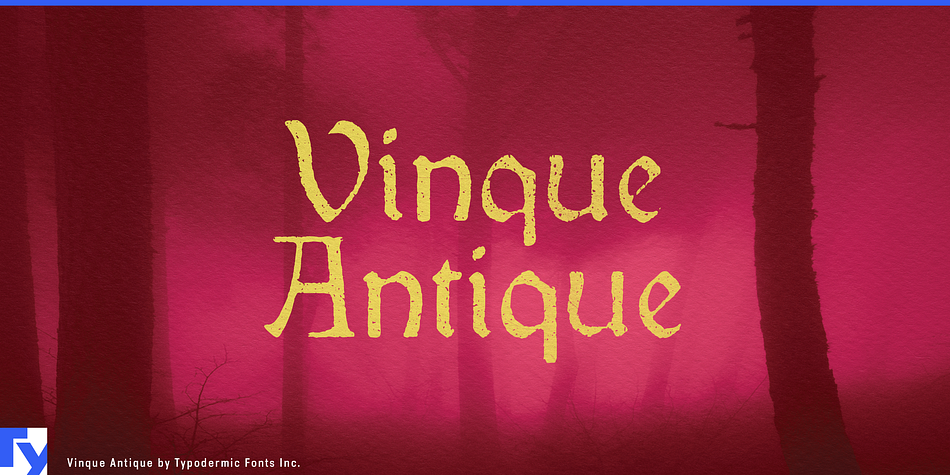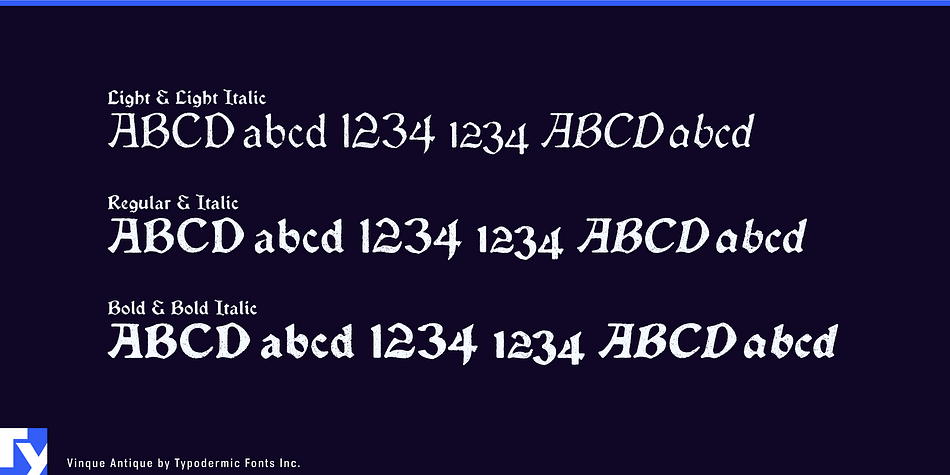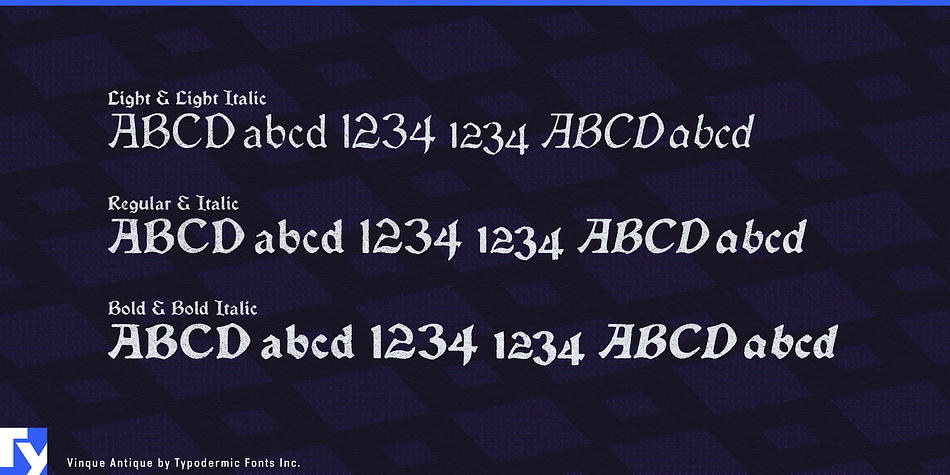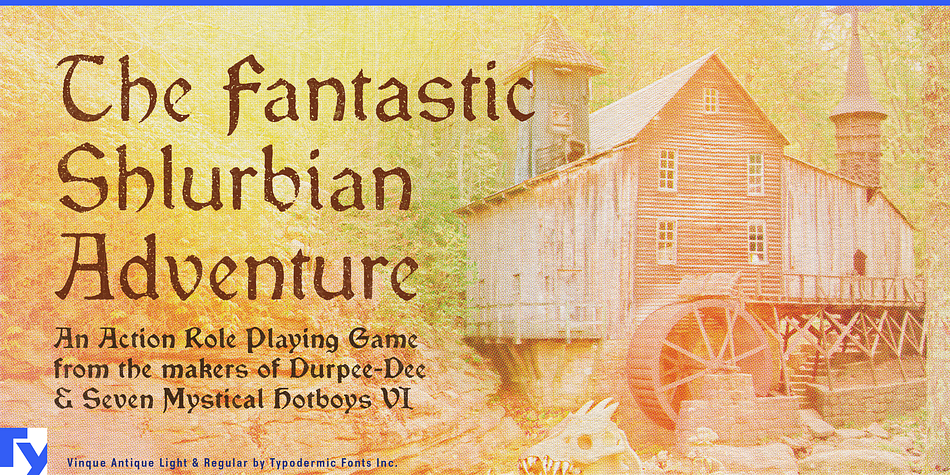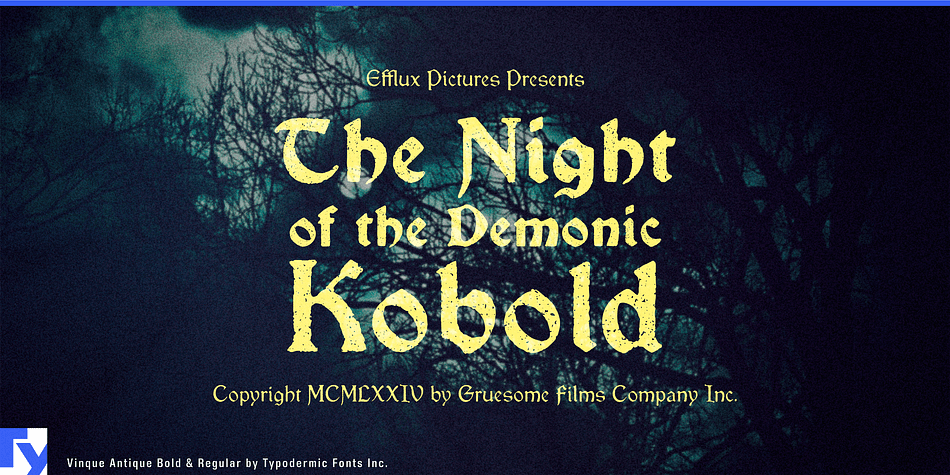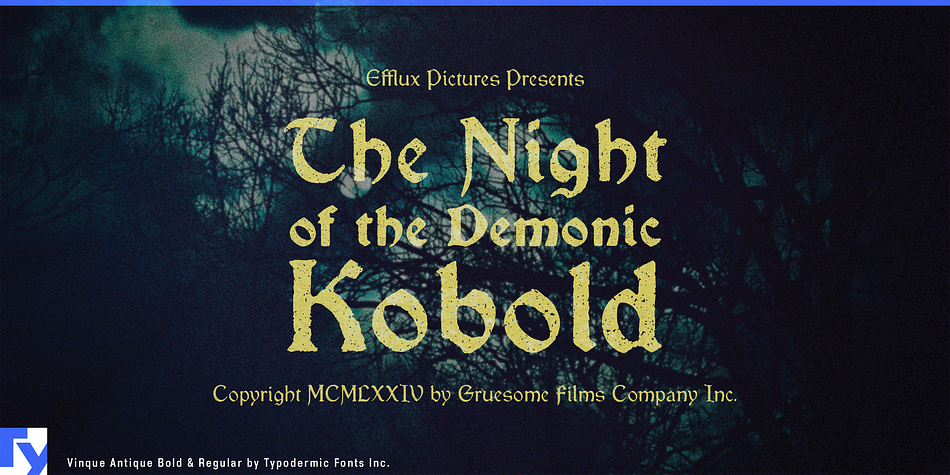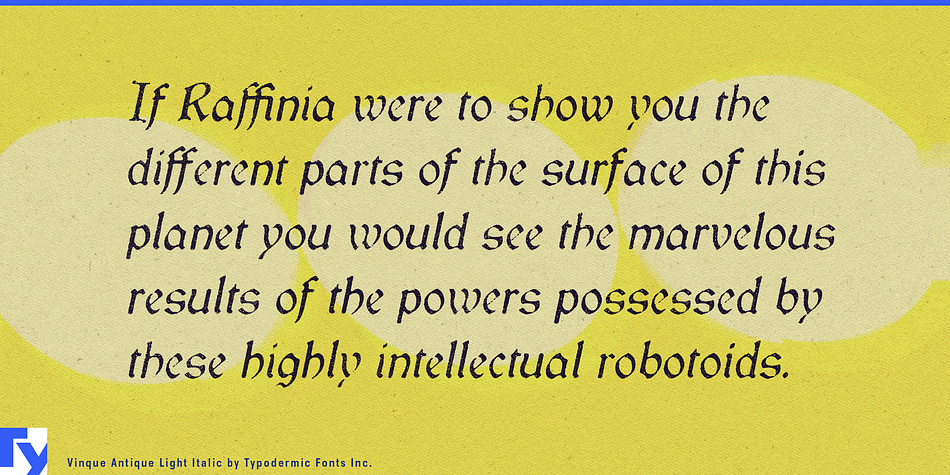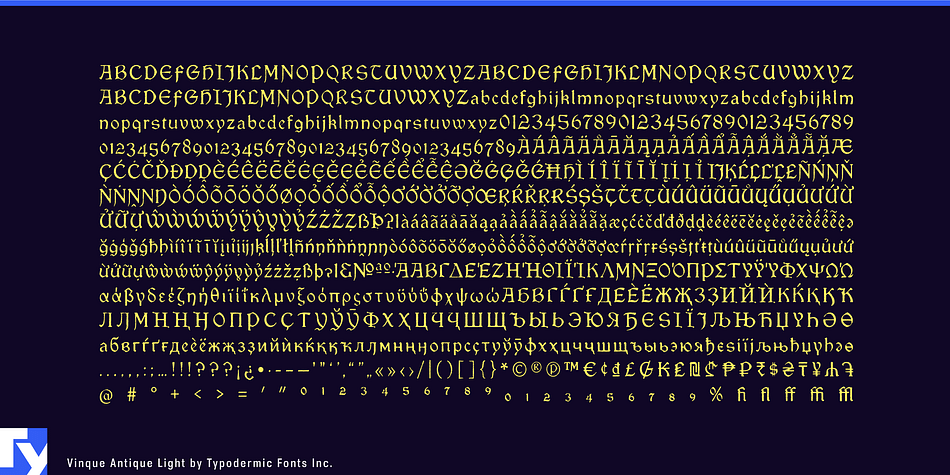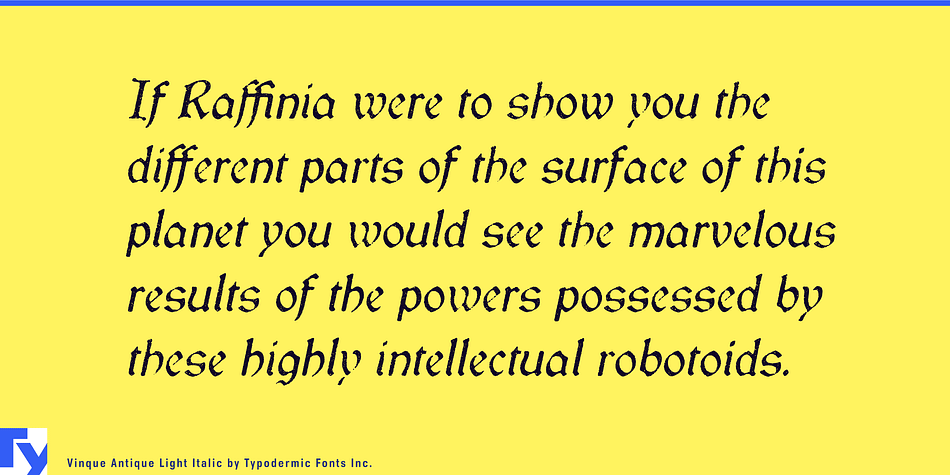
Designed by Ray Larabie, Vinque Antique is a blackletter font family. This typeface has six styles and was published by Typodermic Fonts Inc.
Vinque Antique is an interpretation of a nineteenth century Arts & Crafts revival of medieval lettering with a rustic texture. Most current Latin based languages are supported as well as Greek and Cyrillic. OpenType fractions, f-ligatures and old-style numerals are included. In OpenType savvy applications, three texture variations of alphanumerics (A-Z, a-z, 0-9) are automatically shuffled to create a more natural effect. You can toggle your application’s standard ligatures feature to disable this effect.
Style | Blackletter |
Designer | Ray Larabie |